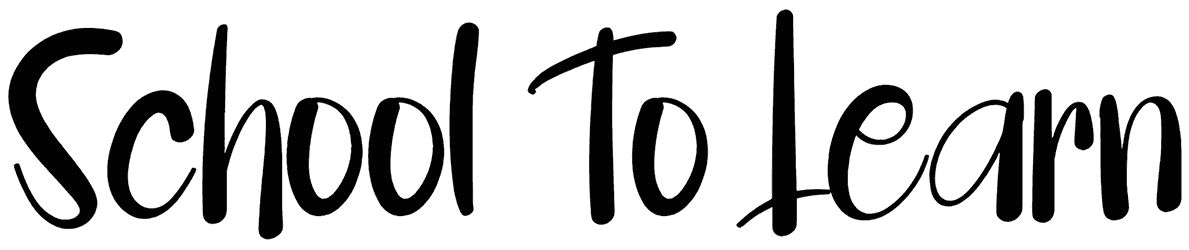
School To Learn Font
School To Learn is what separates a good design from a great project and is worth adding to your collection. This handwritten font has a cartoon style along with human elegance that looks familiar and artistic.
The manual design of this school font has caused a human feeling to overshadow your writing, which will make it easier to communicate with your audience. So implement School To Learn in any poster, book, or album where you need strong communication.